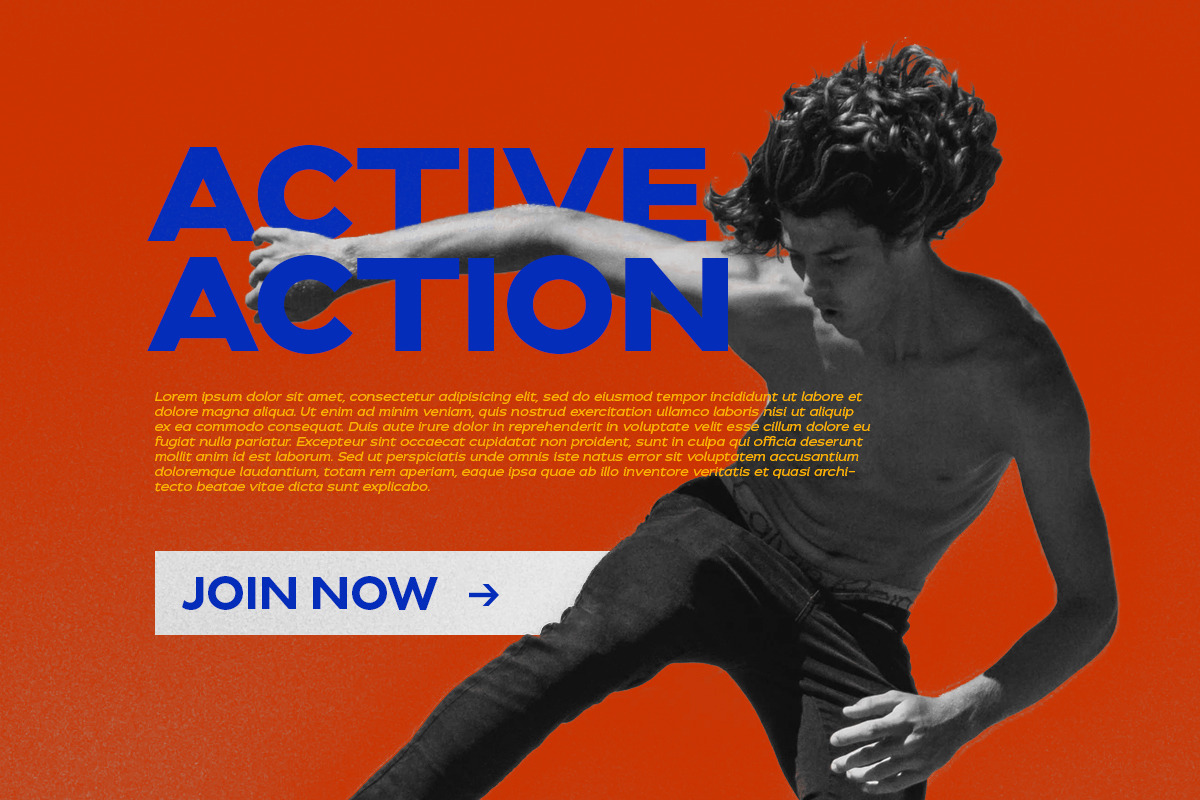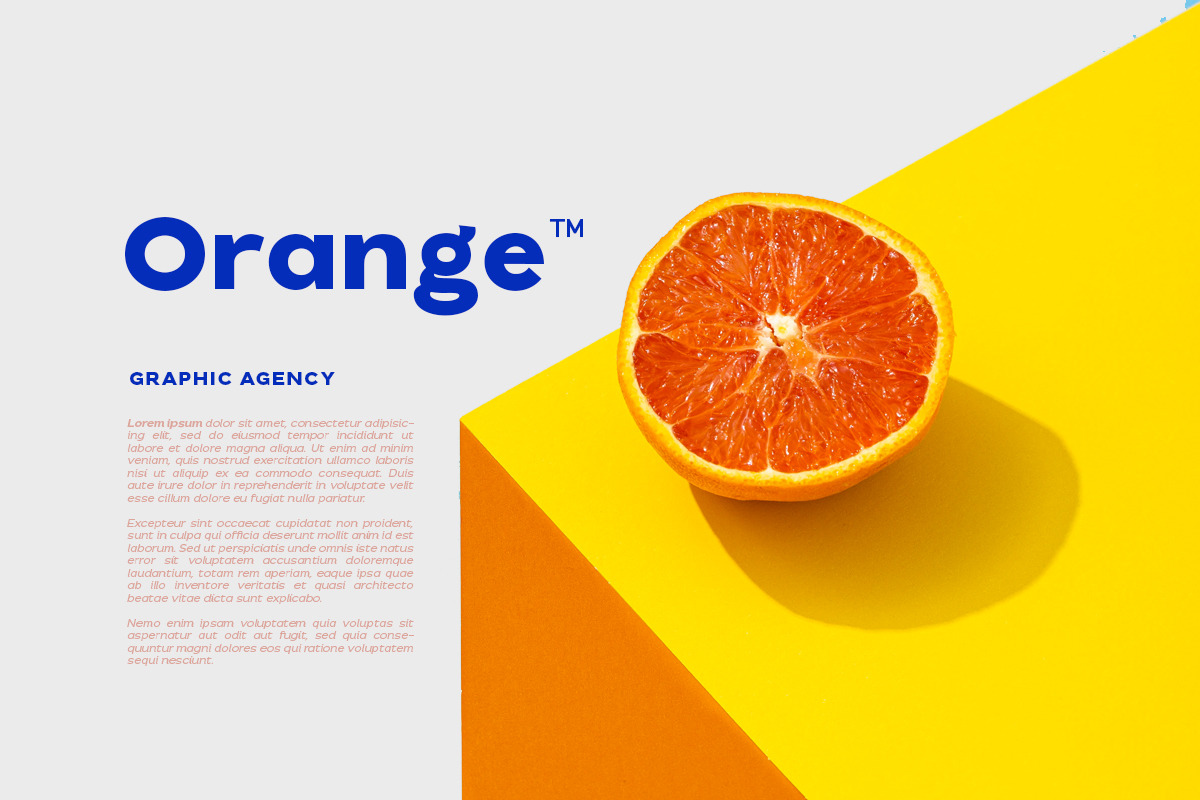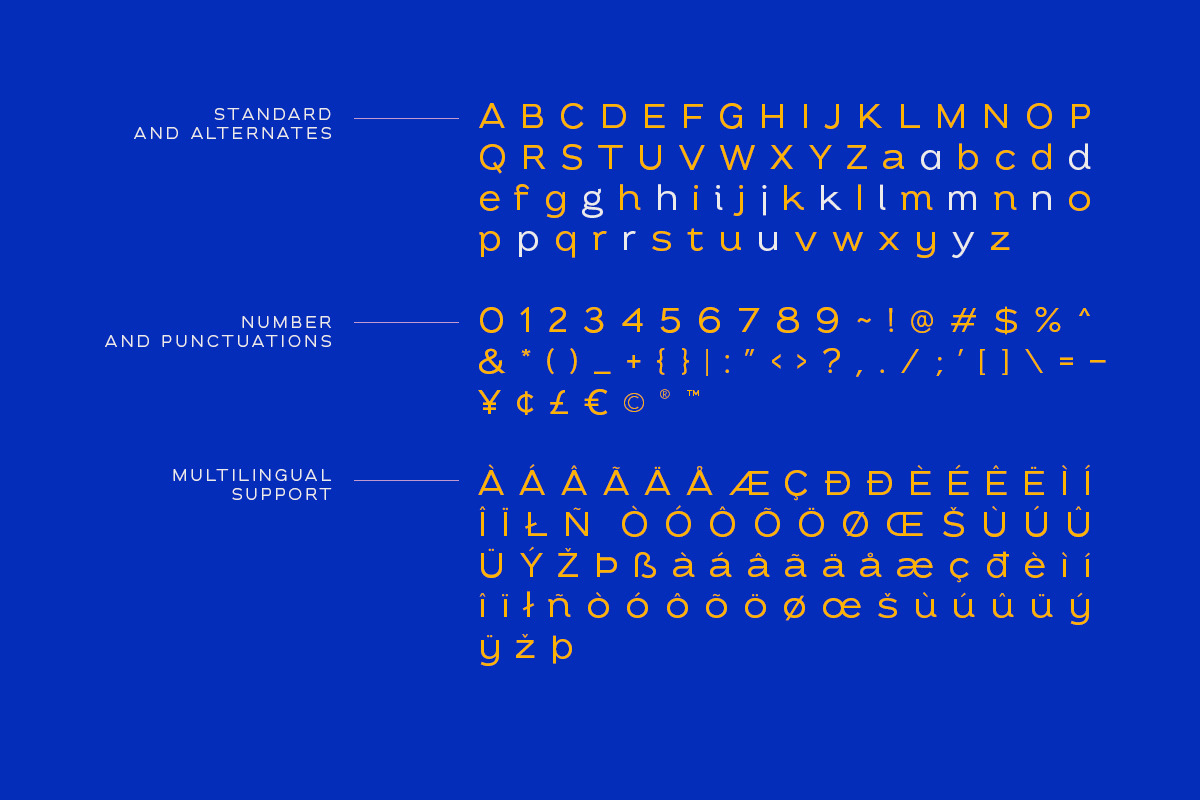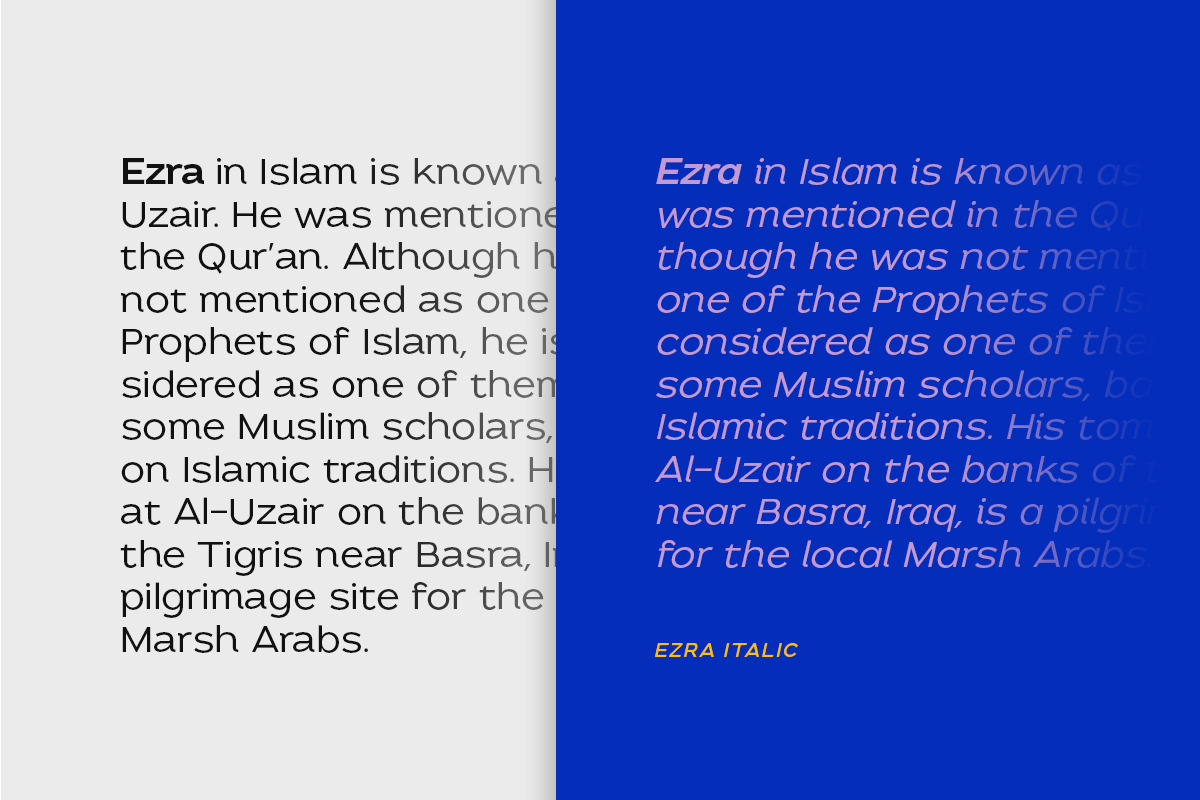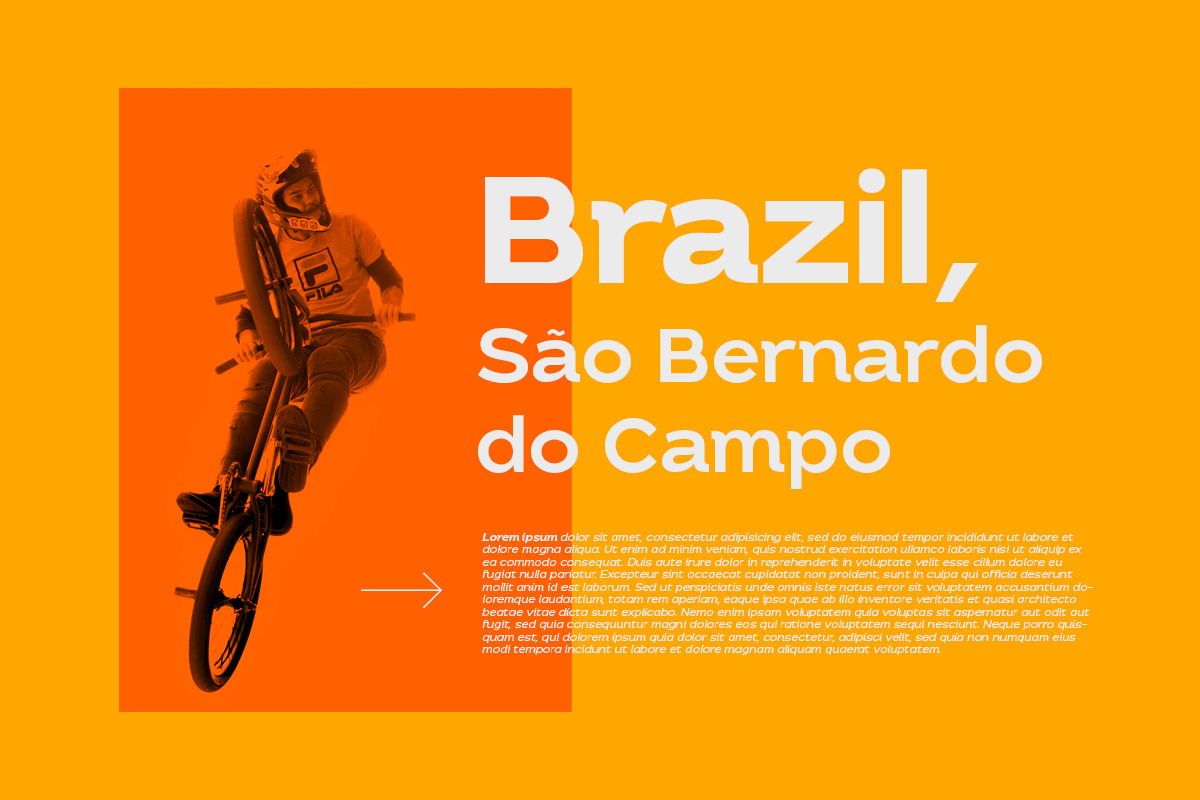
Introducing, a modern and slightly wide sans serif, Ezra Sans Family!
Ezra Sans is a casual and modern sans. With slightly wide form and modern details, this font looks more casual for your any project and designs. This font also contain an alternate in selected characters that will make this font even more stunning. You can use it for a tittle, logo, quotes, or become a pairing in any font. This font also support multi language!
Ezra Light/ Italic
Ezra Regular/ Italic
Ezra Medium/ Italic
Ezra SemiBold/ Italic
Ezra Bold/ Italic
Ezra ExtraBold/ Italic
Ezra Black/ Italic
Support Multilingual up to 14 languages